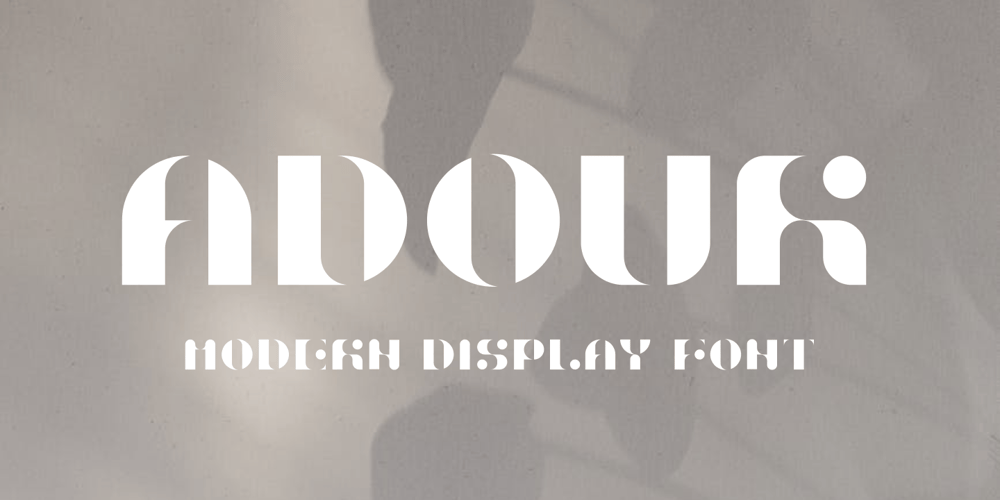
Adour Display
Adour Display Font Family was designed by PSY XU and published by PSY XU STUDIO. Adour Display contains 1 styles and family package options. An abstract and systematic font designed using a 3×3 grid system. This bold yet subtle typography will give your creatives complete originality, impact and forward-thinking. Perfect for logo design.